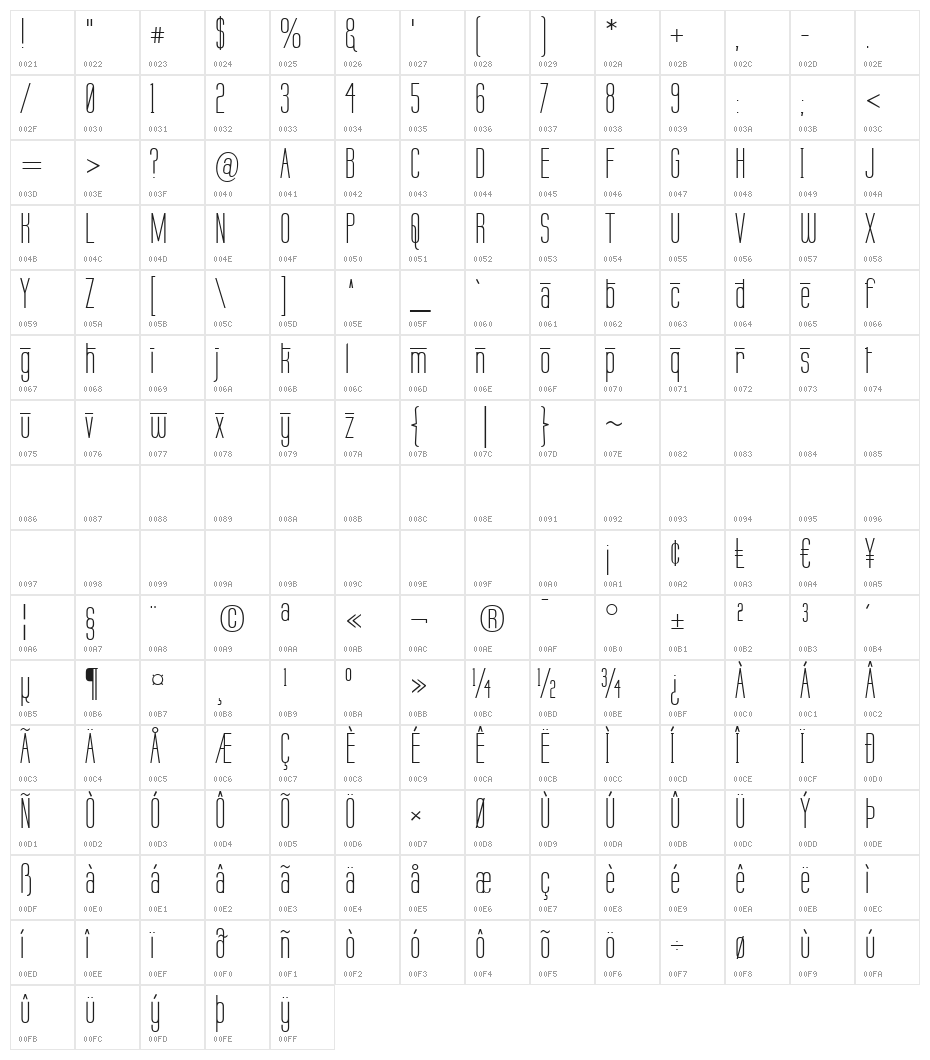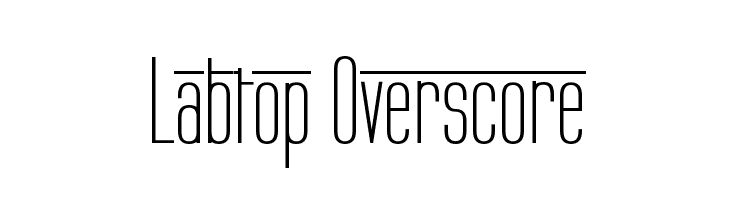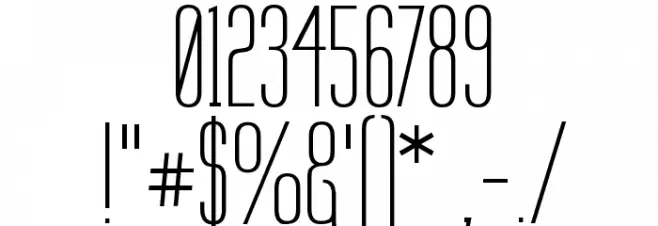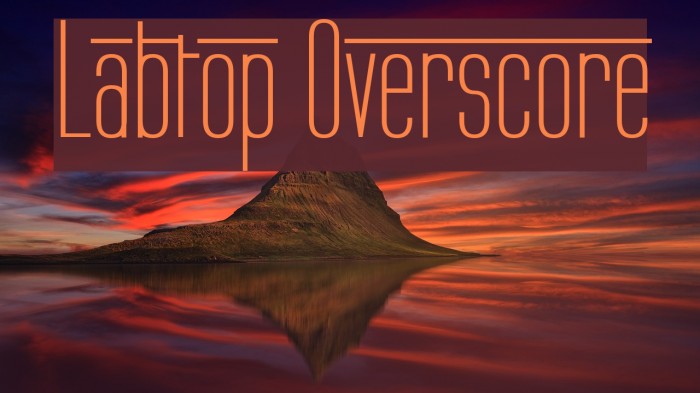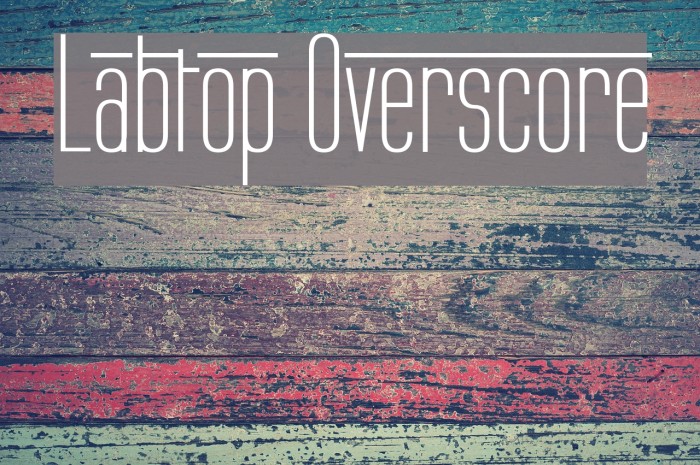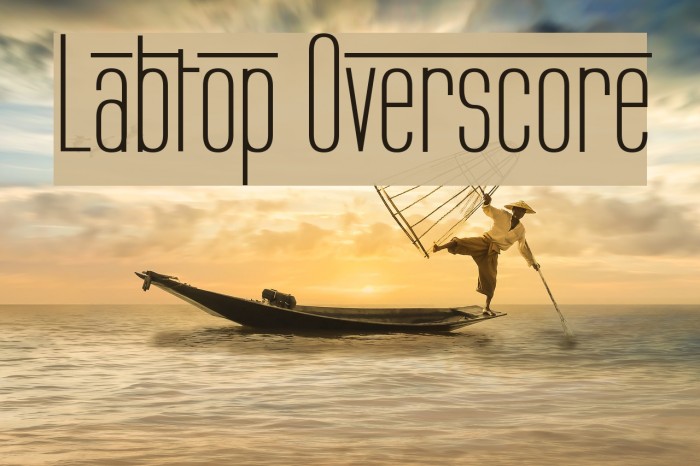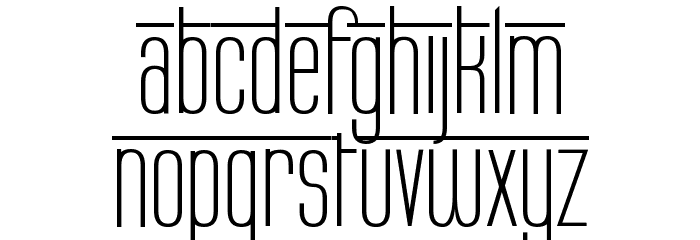
Labtop Overscore Font
Labtop Overscore Description
This font features a modern and sleek design with tall, narrow characters that emphasize verticality. The uppercase letters are particularly elongated, creating a striking and elegant appearance. The lowercase letters maintain a consistent height, contributing to a uniform and cohesive look. The numerals are similarly styled, ensuring readability while maintaining the overall aesthetic. Special characters are included, each designed to complement the font's distinctive style. The thin strokes and minimalistic design make it ideal for contemporary projects where a clean and sophisticated look is desired.